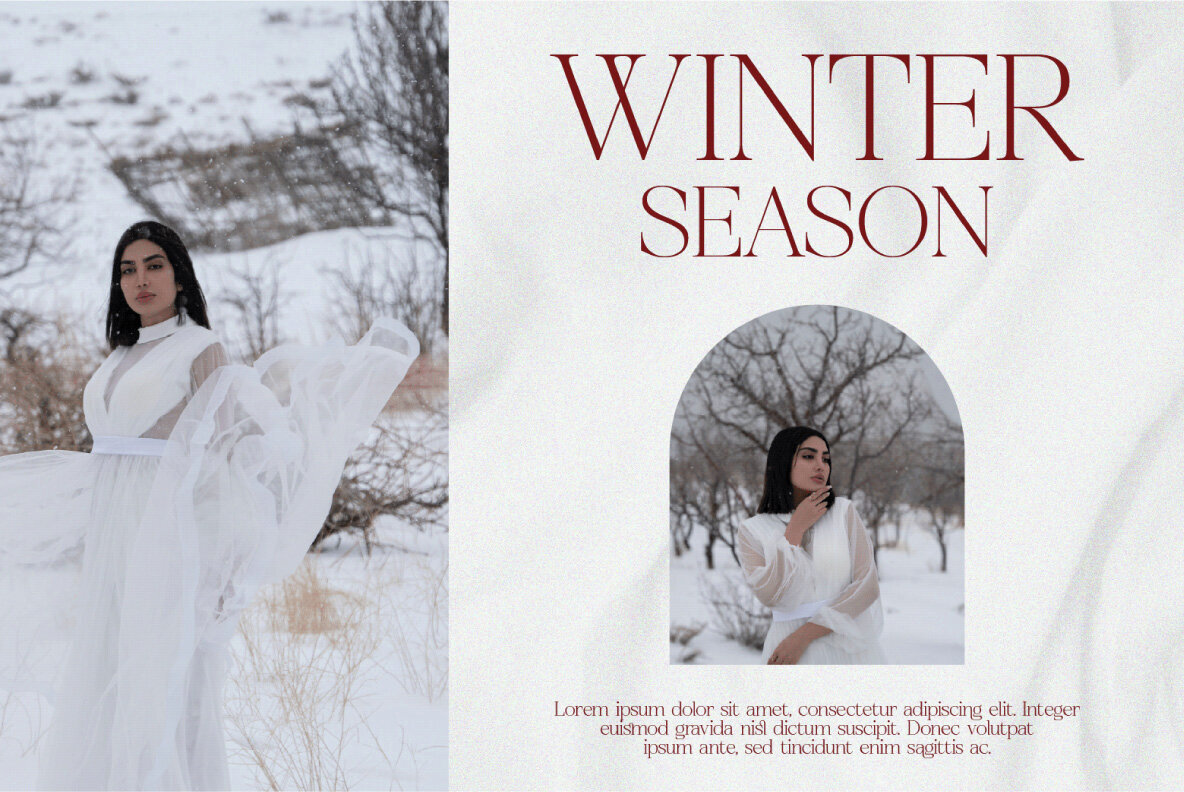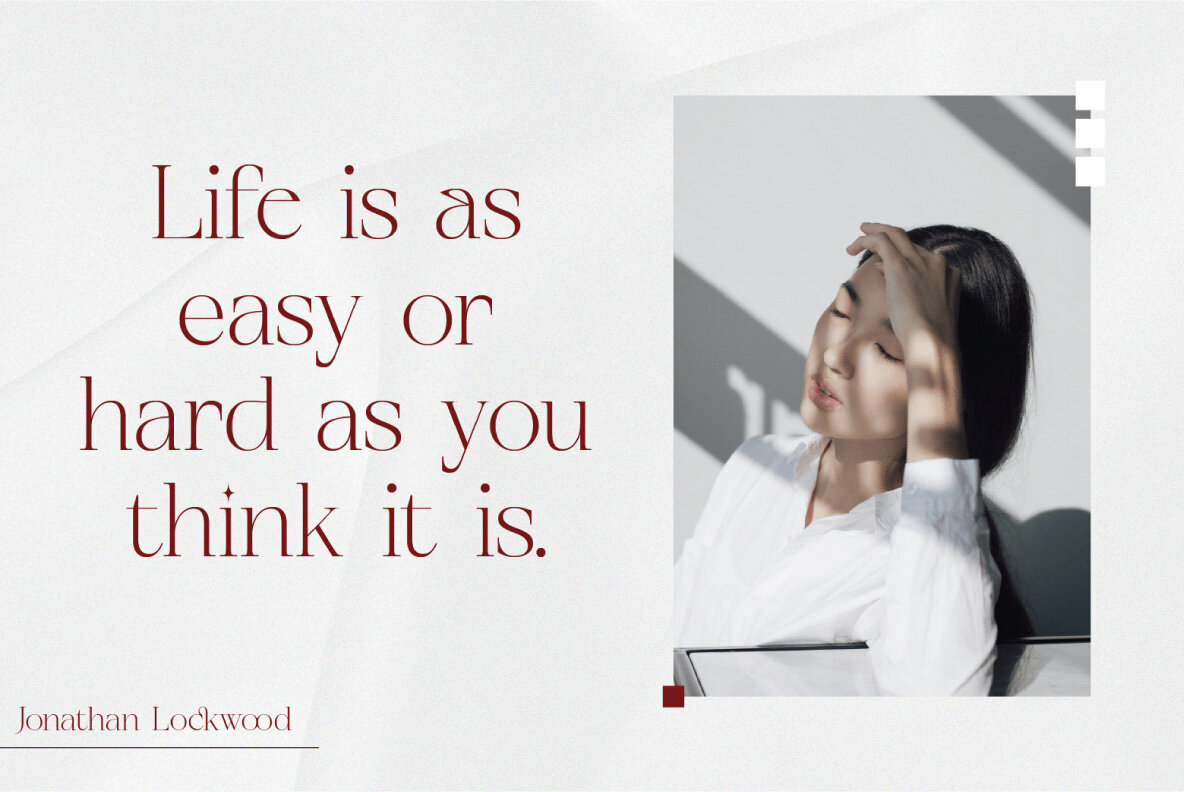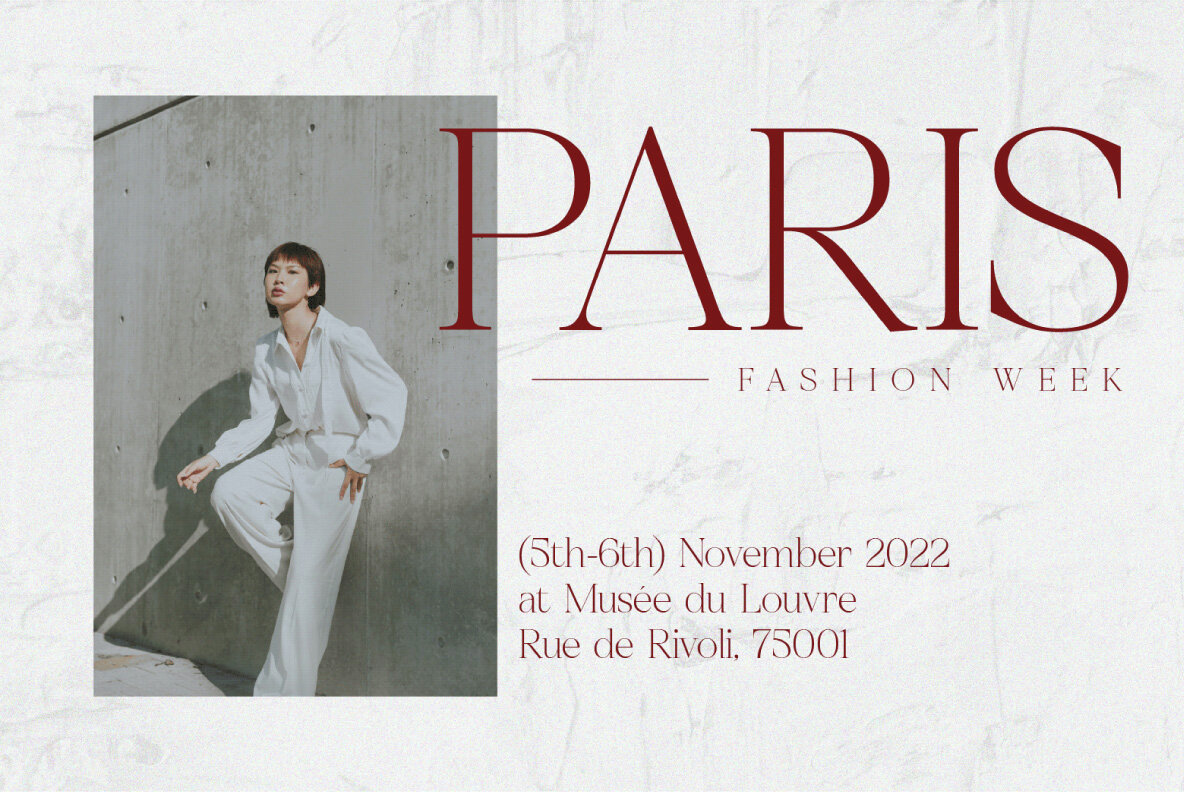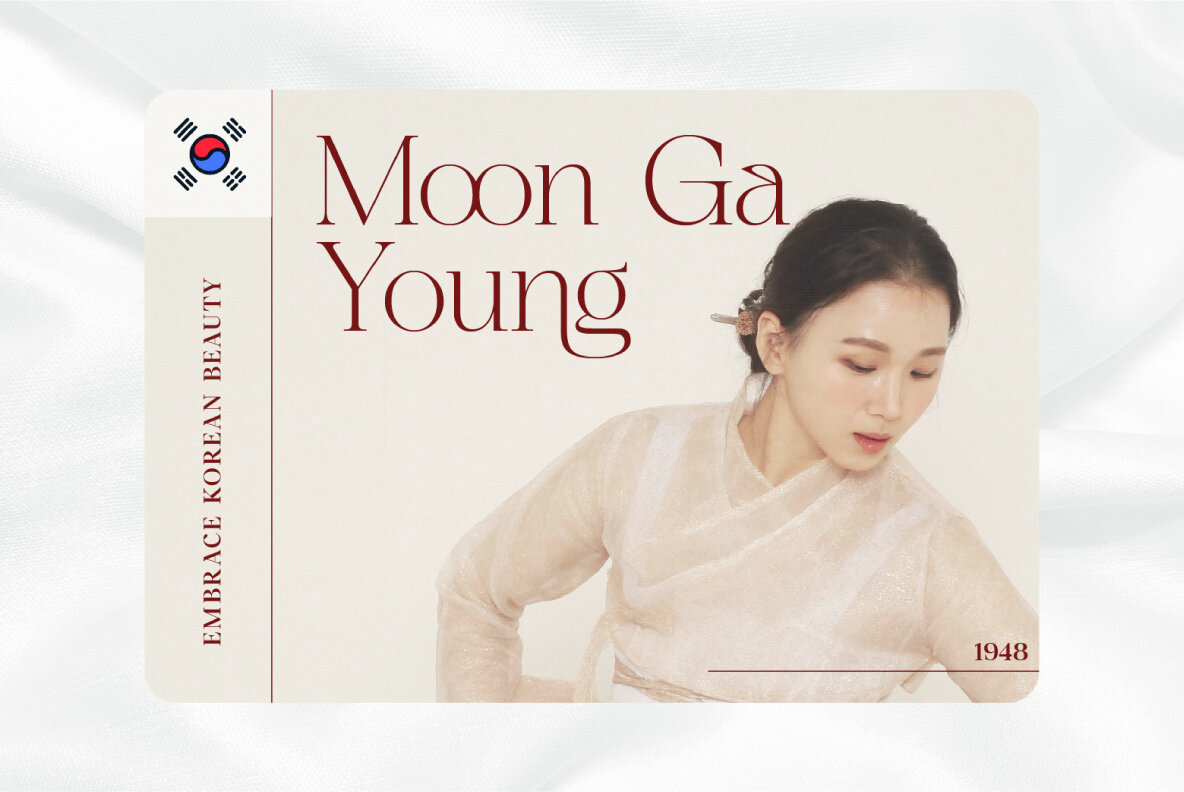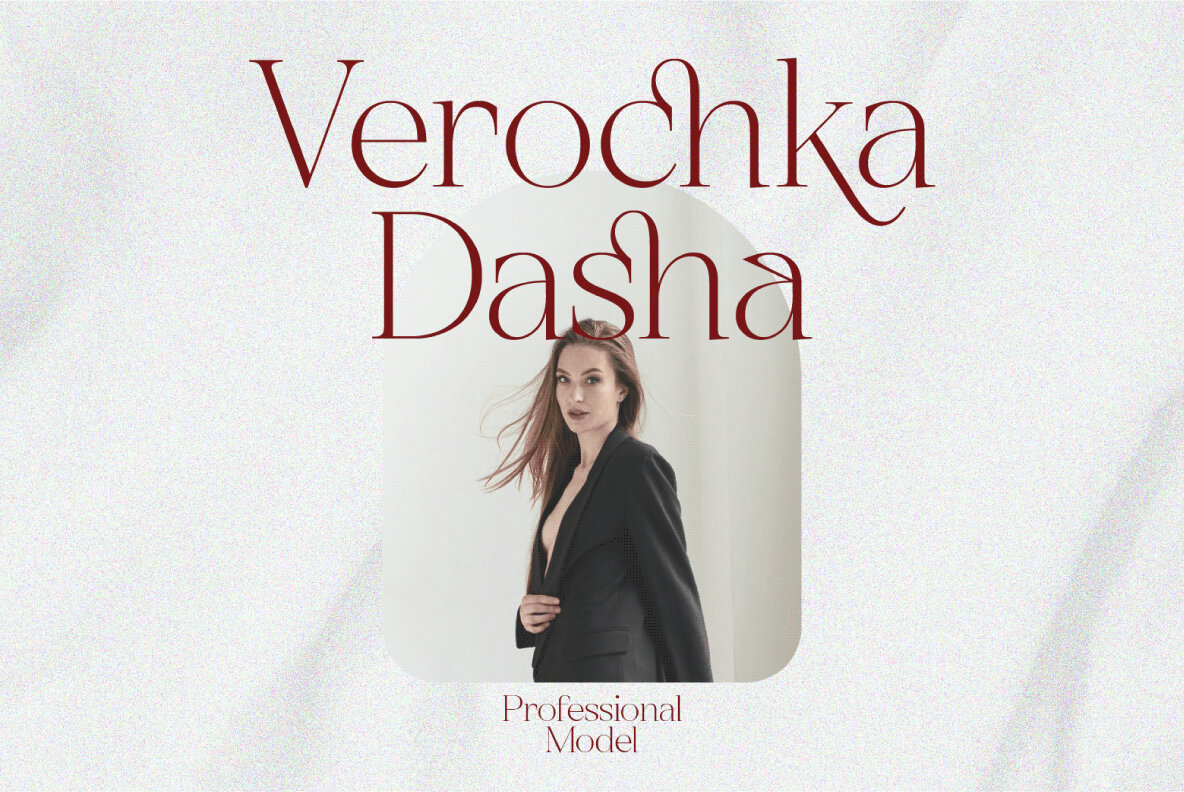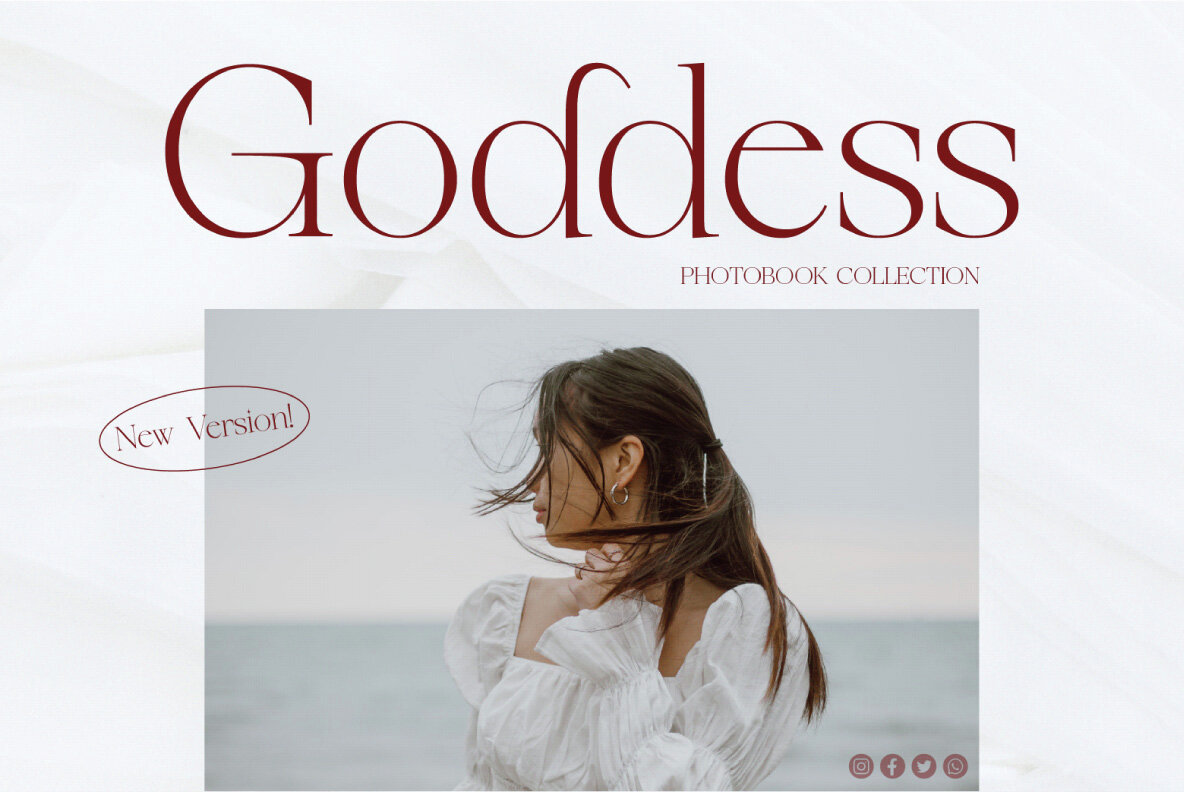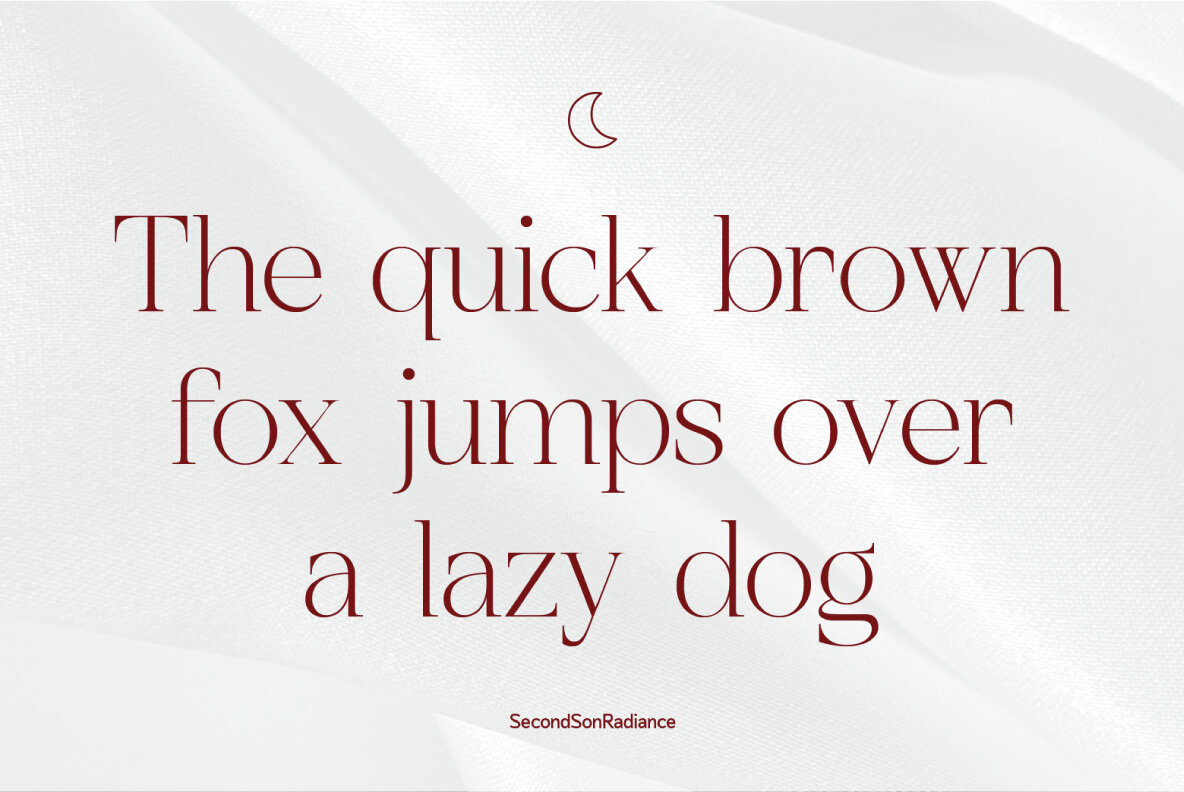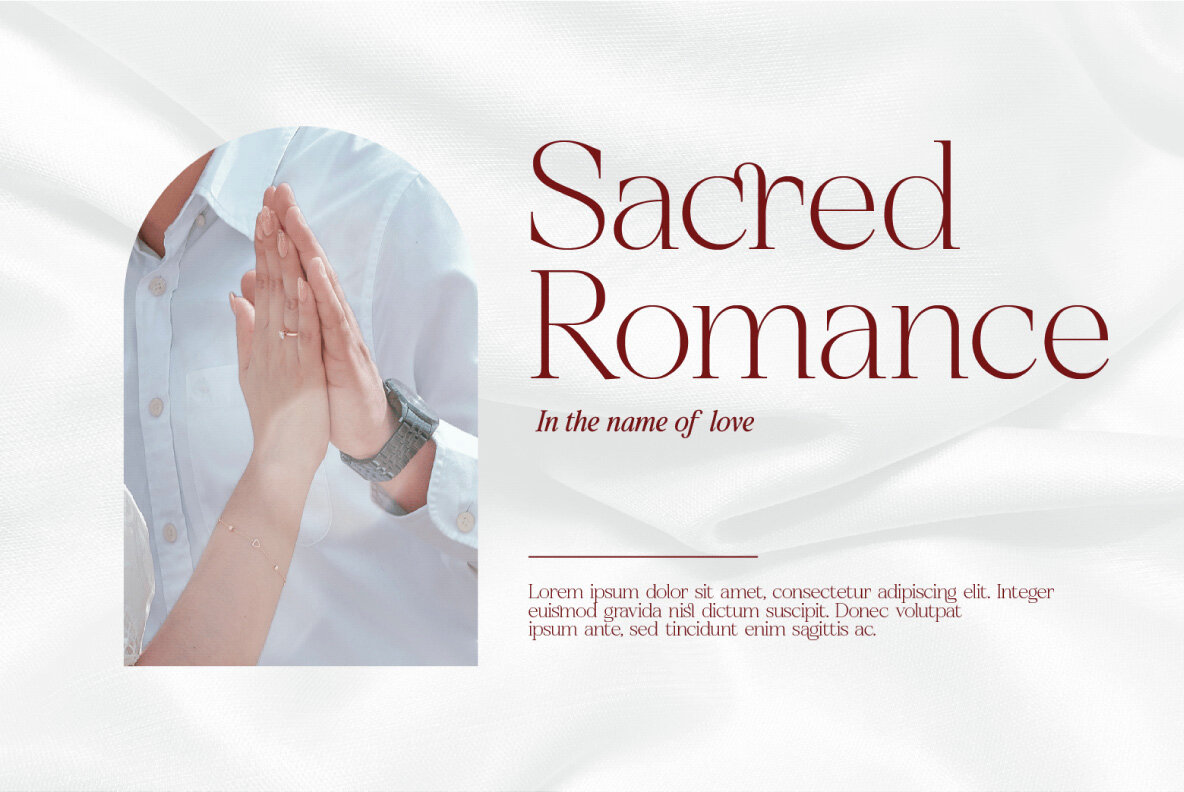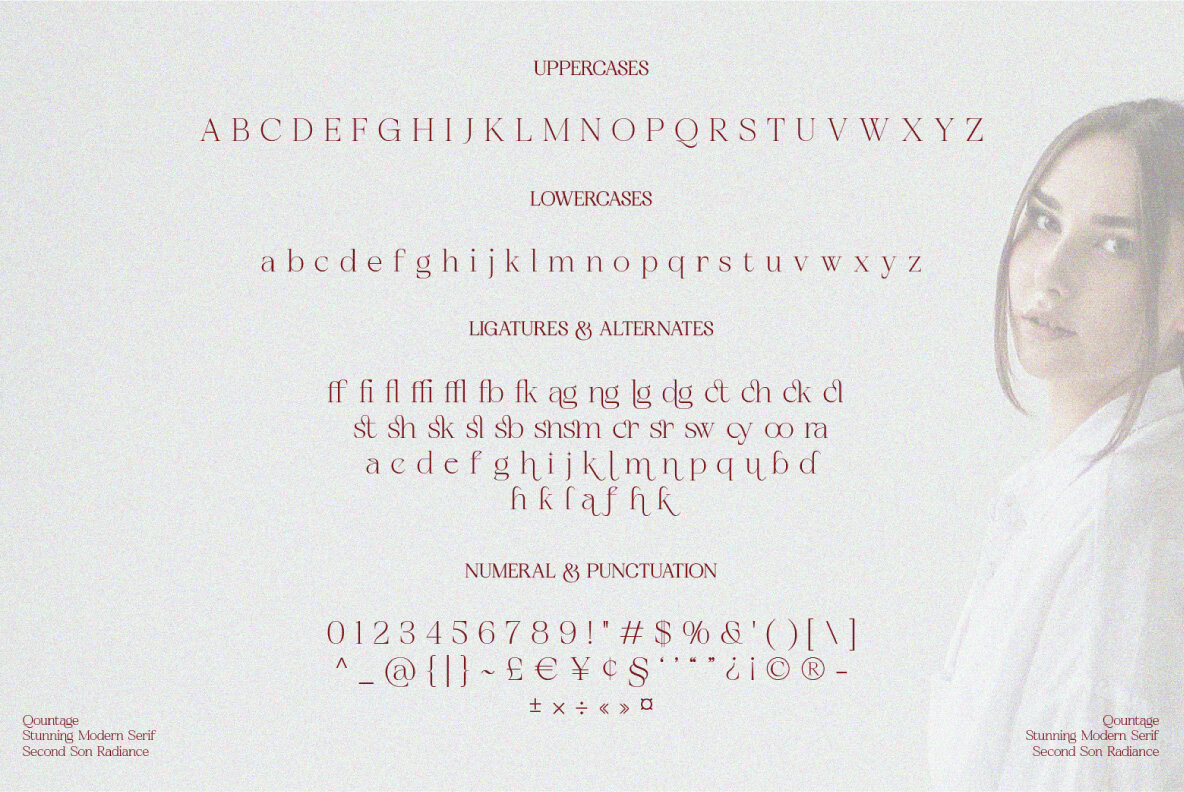
SS Qountage Font
Qountage Regular
Qountage is a trendy and modern serif font that exudes elegance and style, making it a perfect choice for sophisticated branding projects and chic designs. The graceful and classic aesthetics of Qountage seamlessly blend into beauty concepts, providing a luxurious touch to any creative endeavor. This font's unique alternates and ligatures allow you to craft distinctive logos that stand out.
Qountage includes a comprehensive set of features: Basic Latin A-Z and a-z, numbers, punctuation, as well as ligatures and alternates, enhancing its versatility. It supports Opentype features and is PUA encoded, making it accessible and practical for varied design requirements. With multilingual support, Qountage becomes an essential tool for any designer seeking a stylish yet practical font.